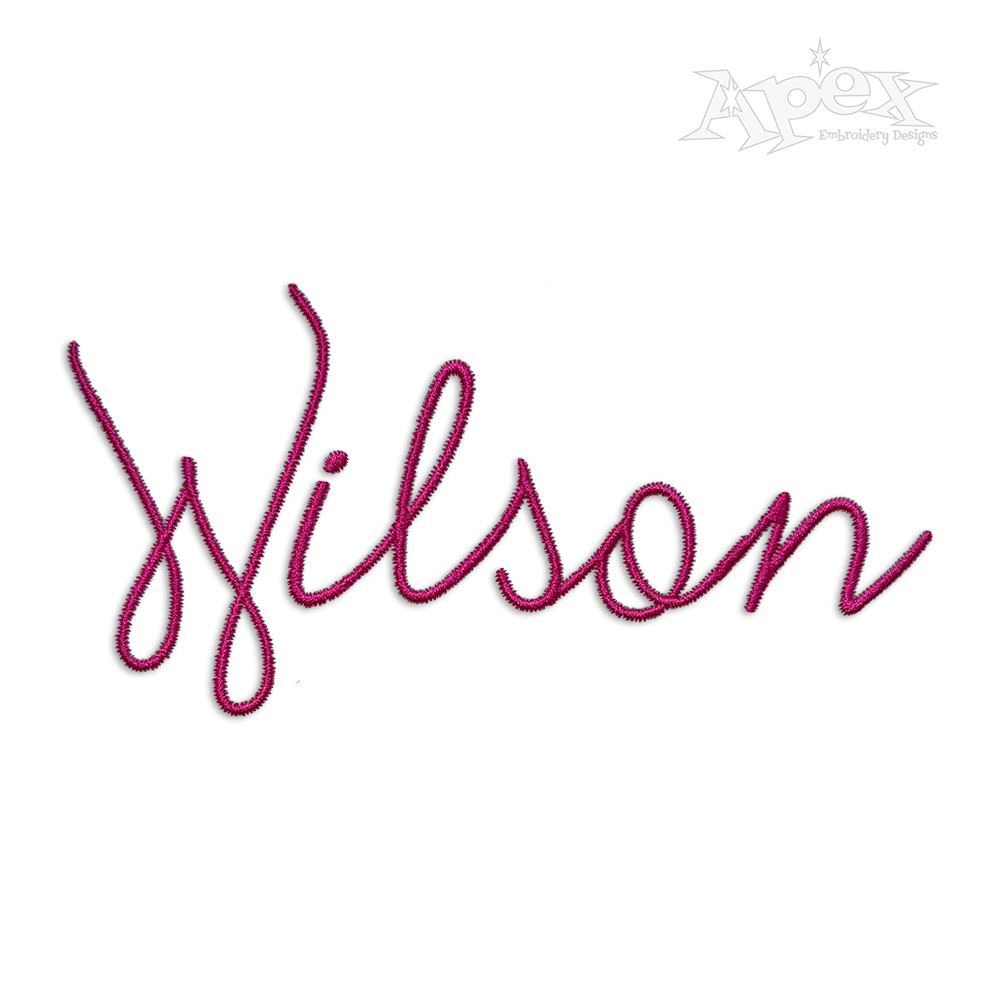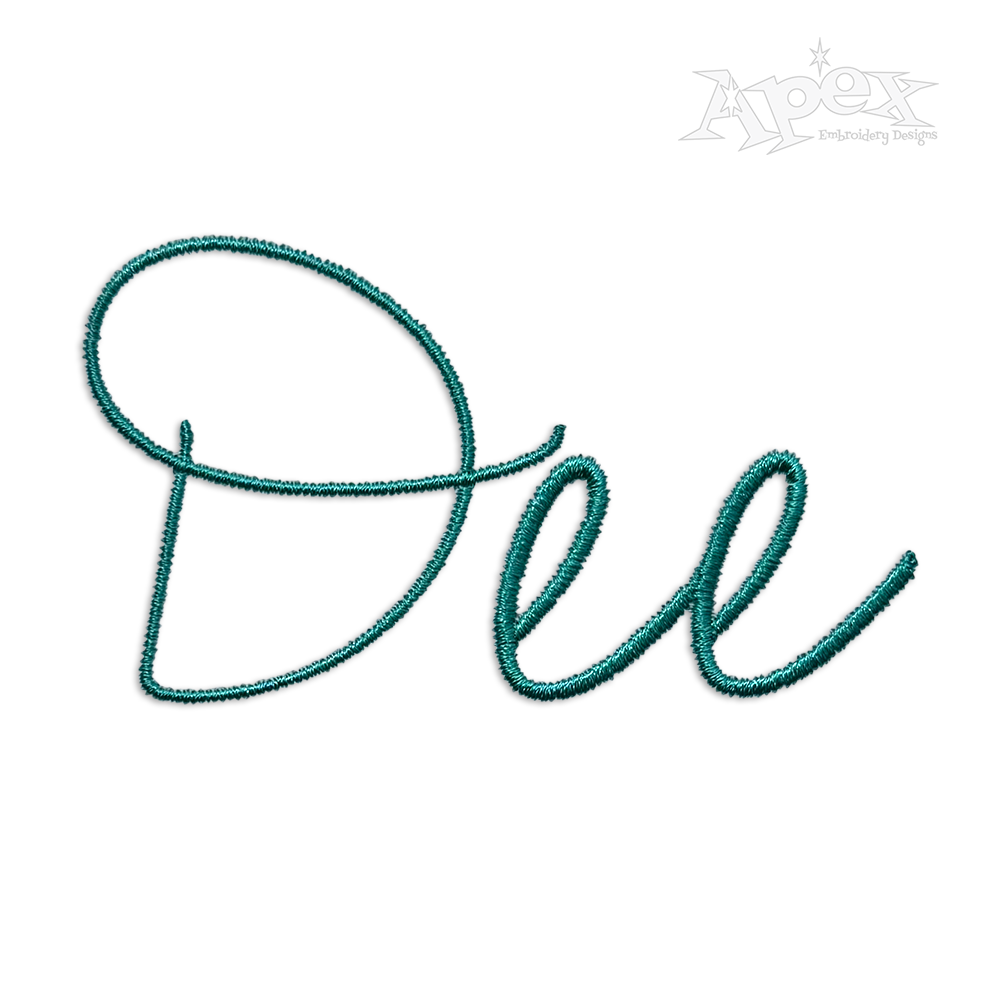
Emily Embroidery Font
Create fancy personalized names with Emily script font set. This clean readable cursive script embroidery set is perfect for customizing hats, linens, towels, baby gifts, tote bags, and more. Included All Letters A-Z Upper and Lowercase.
Emily Script embroidery font collection includes complete size sets with cursive script letters designed for creating stunning personalized names. Each font comes professionally digitized for smooth stitching and excellent embroidery results.